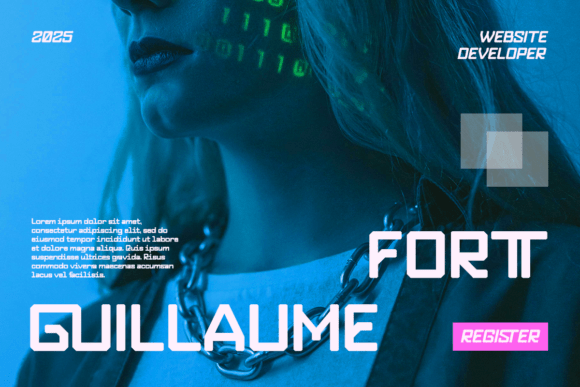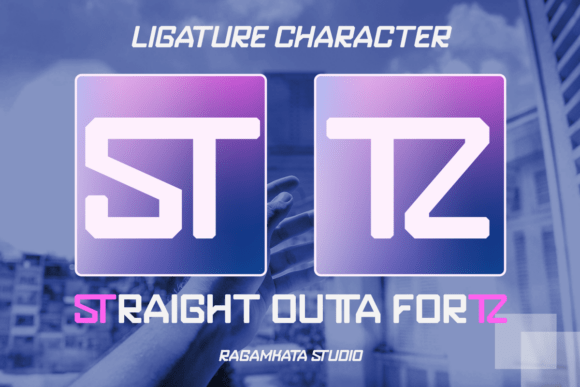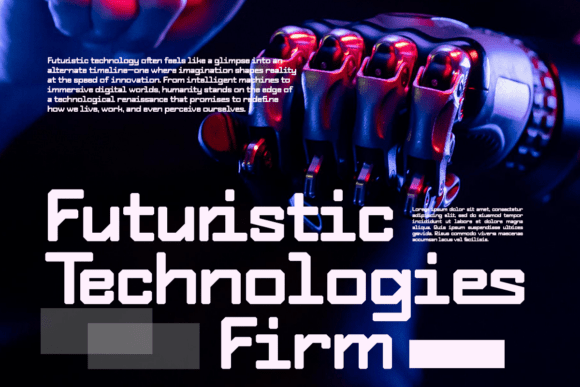
Introduction to Ersiqust Font
Have you ever stared at a blank canvas, waiting for the perfect design to come to life? For many creatives, this moment is the spark that sets their imagination ablaze. As designers, we’re constantly on the lookout for the right tools to bring our vision to reality. That’s where Ersiqust Font comes in – a game-changing addition to any design arsenal.
With its sleek, modern aesthetic, Ersiqust Font is the perfect solution for designers seeking a high-quality, versatile typeface that can elevate a wide range of creative projects. Whether you’re crafting a logo, designing a product package, or creating an invitation layout, Ersiqust Font’s adaptability makes it an invaluable resource. Plus, its transparent background makes it easy to integrate with digital elements, from boarding passes to game industry visuals.
Key Features of Ersiqust Font
- High-quality design resource for various creative projects, including graphic design, digital art, and typography.
- Unique, modern design with a transparent background, allowing for seamless integration with any background image or color.
- Optimized for high-resolution displays, with a resolution of 300 DPI or higher, ensuring crisp and clear text rendering.
- Includes a range of weights and styles, including light, regular, bold, and italic, to suit various design needs.
Honest Review: Ersiqust Font
As a designer, I’m always on the lookout for high-quality design resources to elevate my creative projects. Recently, I stumbled upon the Ersiqust Font, and I must say, it’s been a game-changer.
Here’s what works well:
- ✨ Unique and elegant design that adds a touch of sophistication to any project.
- ✨ High-quality glyphs that ensure crisp and clear typography.
- ✨ Transparent background, making it easy to layer and blend with other design elements.
However, I do have a few minor quibbles:
- ⚠️ Limited character set, which might be a concern for more extensive projects.
- ⚠️ Not as versatile as some other fonts, which can make it less suitable for certain design styles.
Overall, I’m thoroughly impressed with the Ersiqust Font. Its high-quality design and transparent background make it an excellent choice for any creative project. While it may have some limitations, it’s a solid addition to any design library and well worth considering for your next project.
Tips for Getting the Most Out of Ersiqust Font
1. Experiment with different font sizes and styles to create visual interest.
2. Use Ersiqust Font in combination with other design elements to create a cohesive look.
Ersiqust Font is perfect for creative projects that require a high-quality, elegant font. Some common use cases include:
1. Branding and logos.
2. Infographics and data visualizations.
3. Business cards and resumes.
4. Social media graphics and advertisements.
Compared to Ersiqust Font, Avenir has a more geometric and futuristic feel, making it suitable for futuristic or technological themes. It lacks the distressed and vintage feel of Ersiqust Font, but offers a cleaner and more modern aesthetic.
Is the Ersiqust Font suitable for large-scale printing, or is it optimized for digital use?
The Ersiqust Font is designed to be versatile and suitable for both digital and print use. However, for large-scale printing, it’s recommended to use a font with a higher resolution and a more robust design. The Ersiqust Font is optimized for digital use, but it can still be used for print projects with a resolution of 300 DPI or higher.